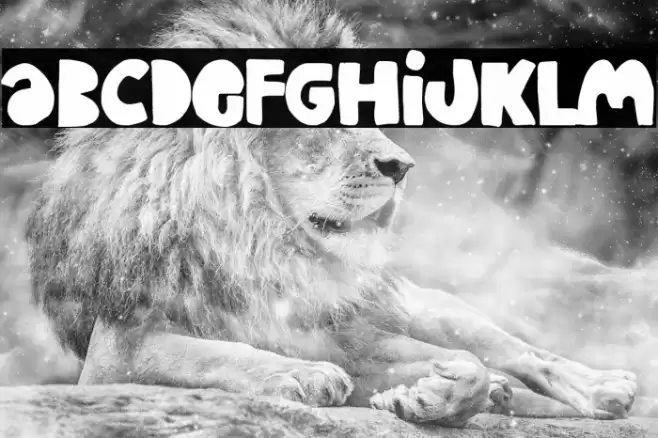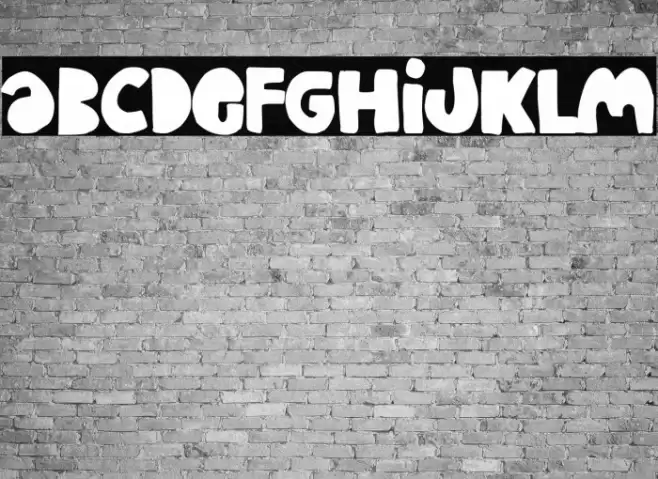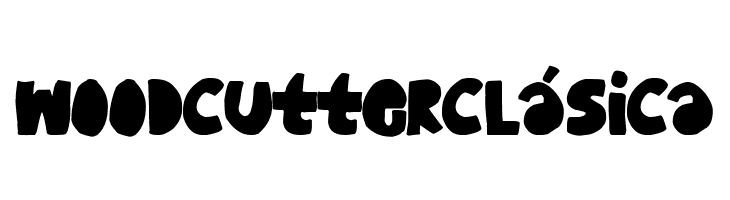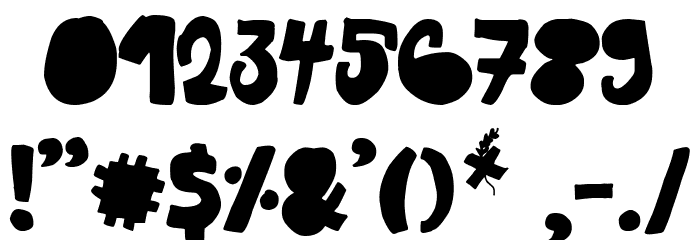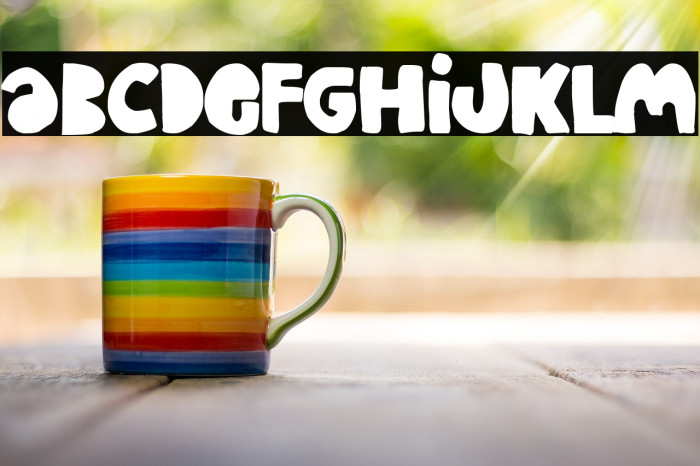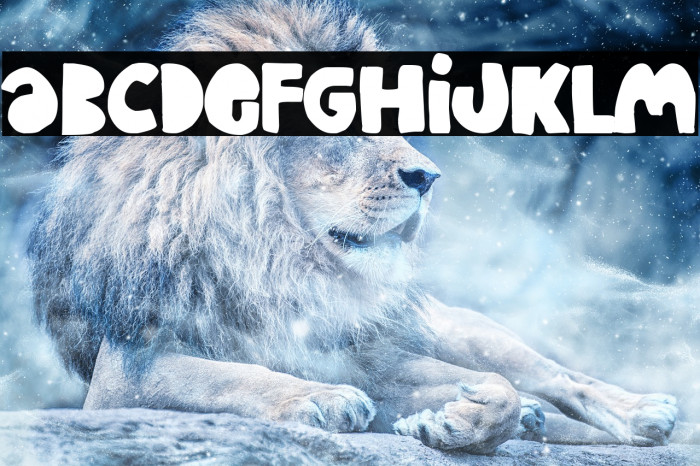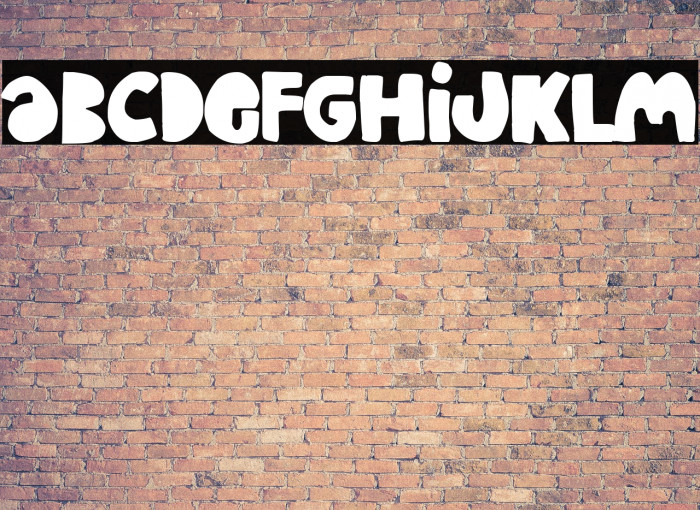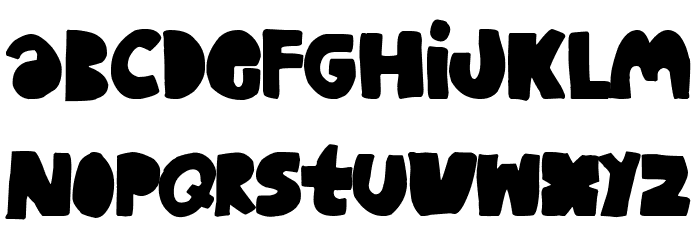
Woodcutter Clásica Font
Woodcutter Clásica Description
This font features a bold and playful design with a distinctly chunky and rounded appearance. The characters are heavily stylized, with exaggerated curves and a whimsical feel, making it ideal for creative and informal applications. The uppercase and lowercase letters maintain a consistent thickness, contributing to a cohesive look. Numbers and special characters are equally bold, ensuring they stand out in any design. The overall style is reminiscent of hand-drawn or crafted lettering, adding a personal touch to any project.
A bold, playful font with chunky, rounded characters and a whimsical style from Cartoon fonts.
- Proposed Projects: Ideal for children's books, playful branding, posters, and creative invitations.